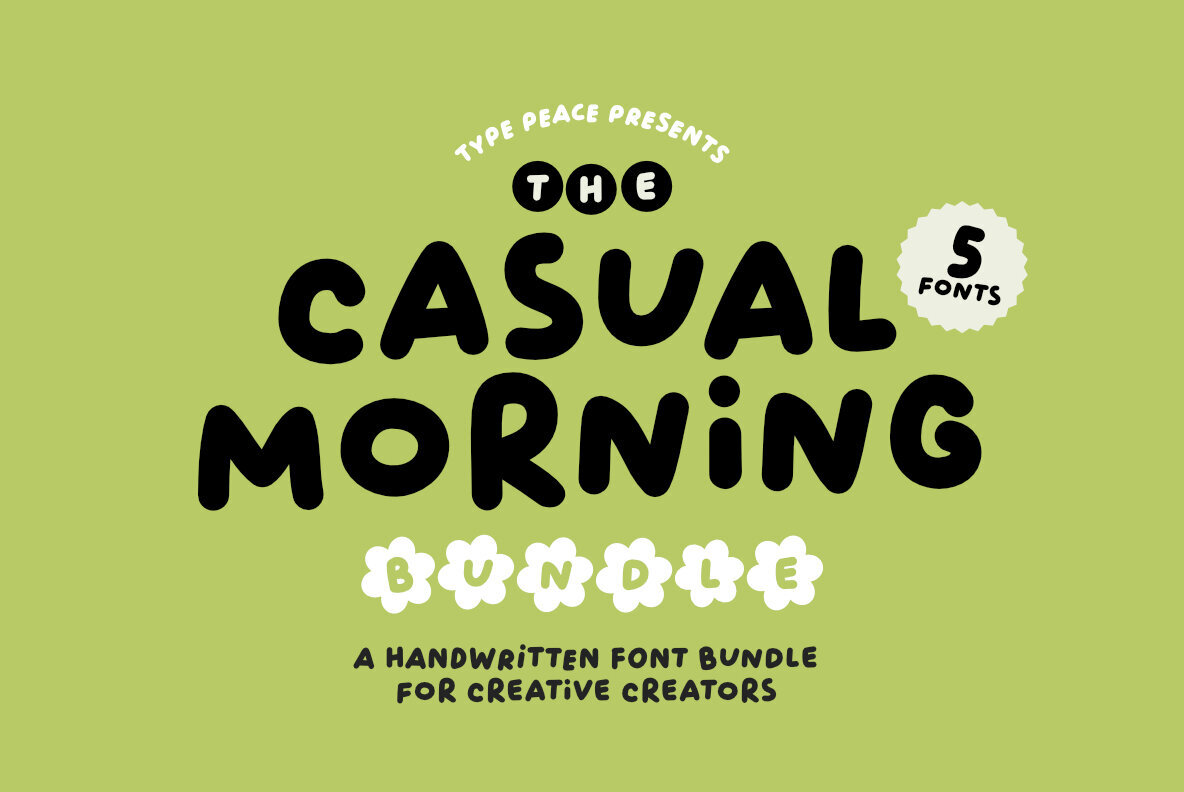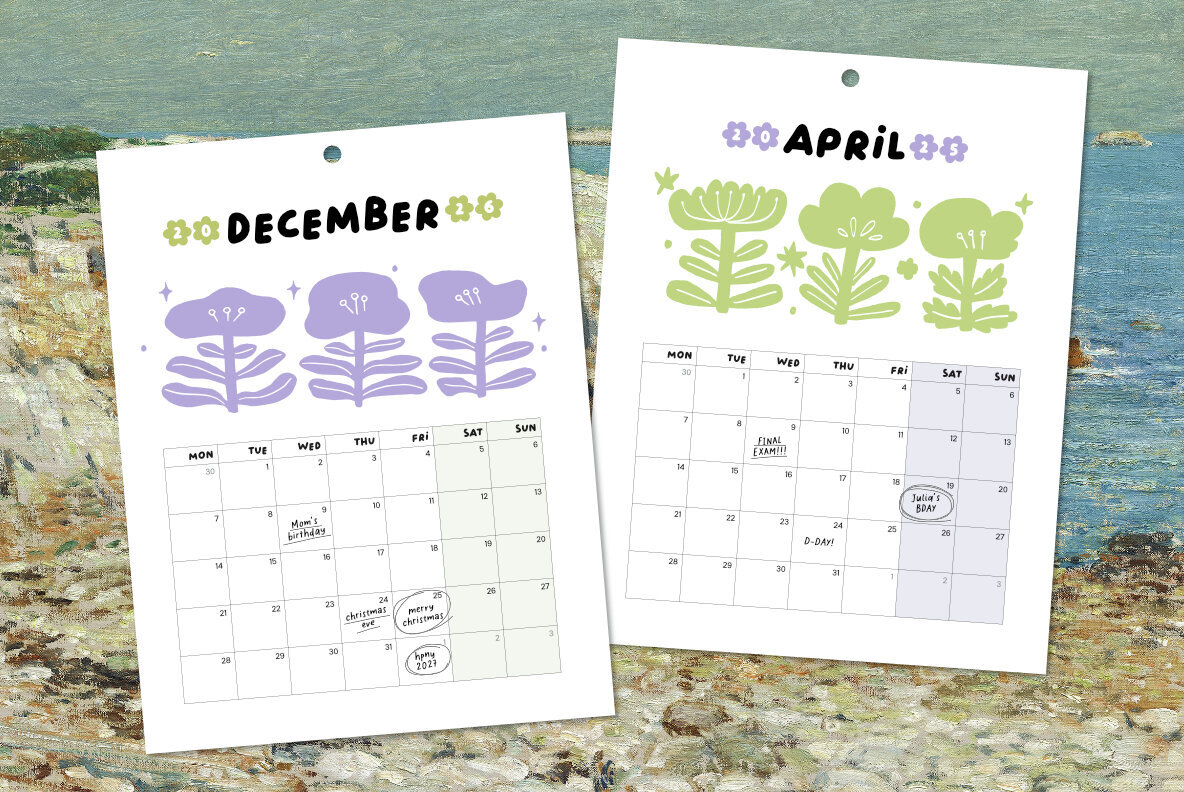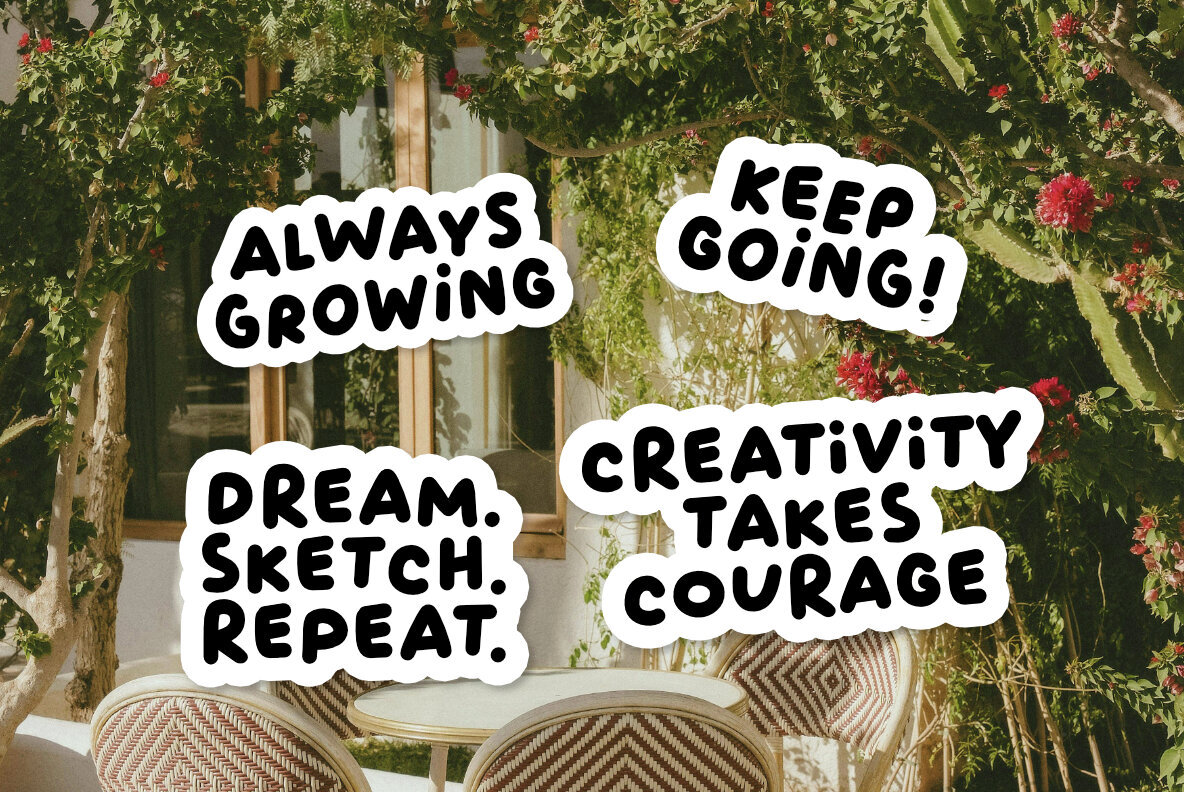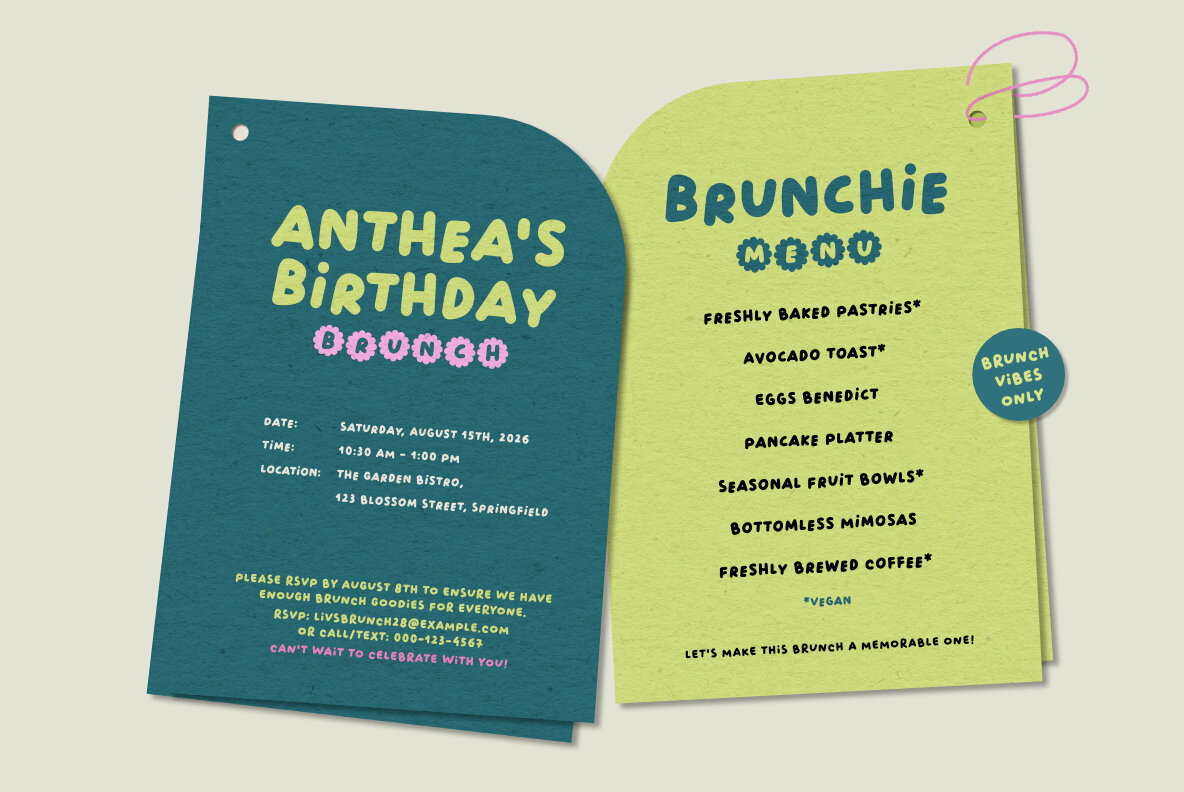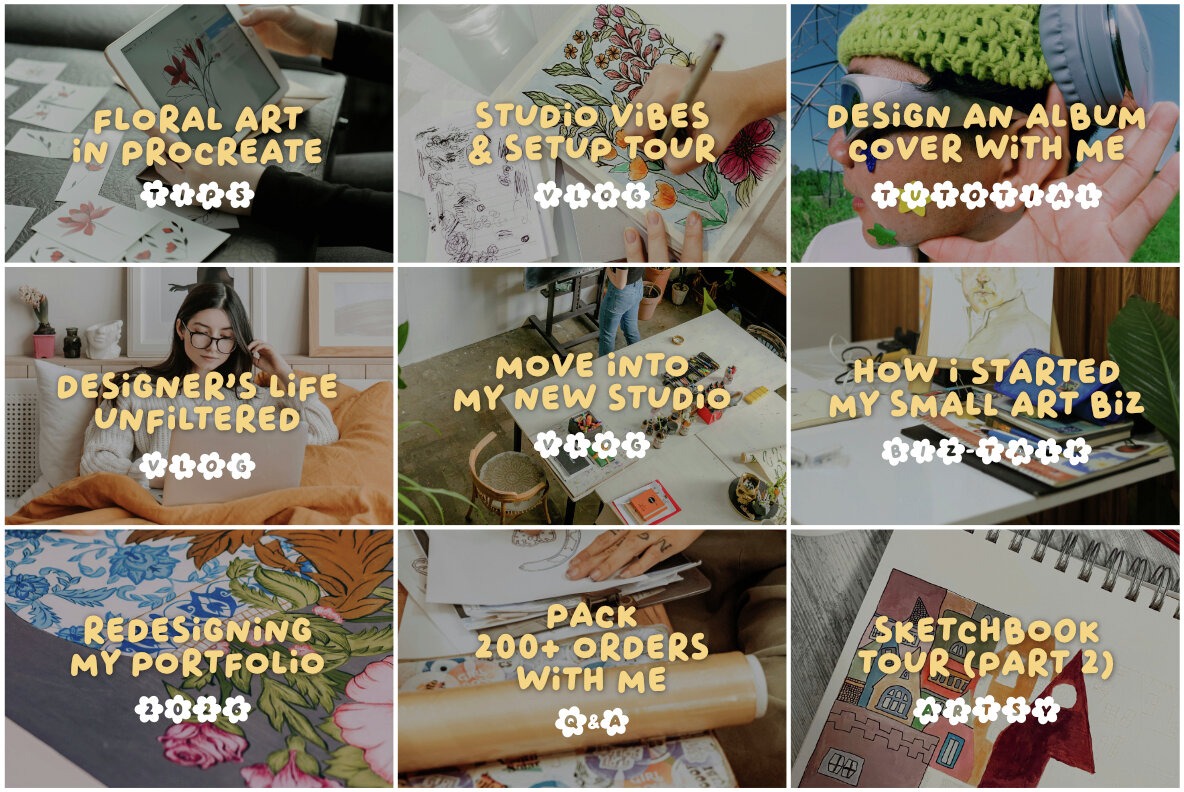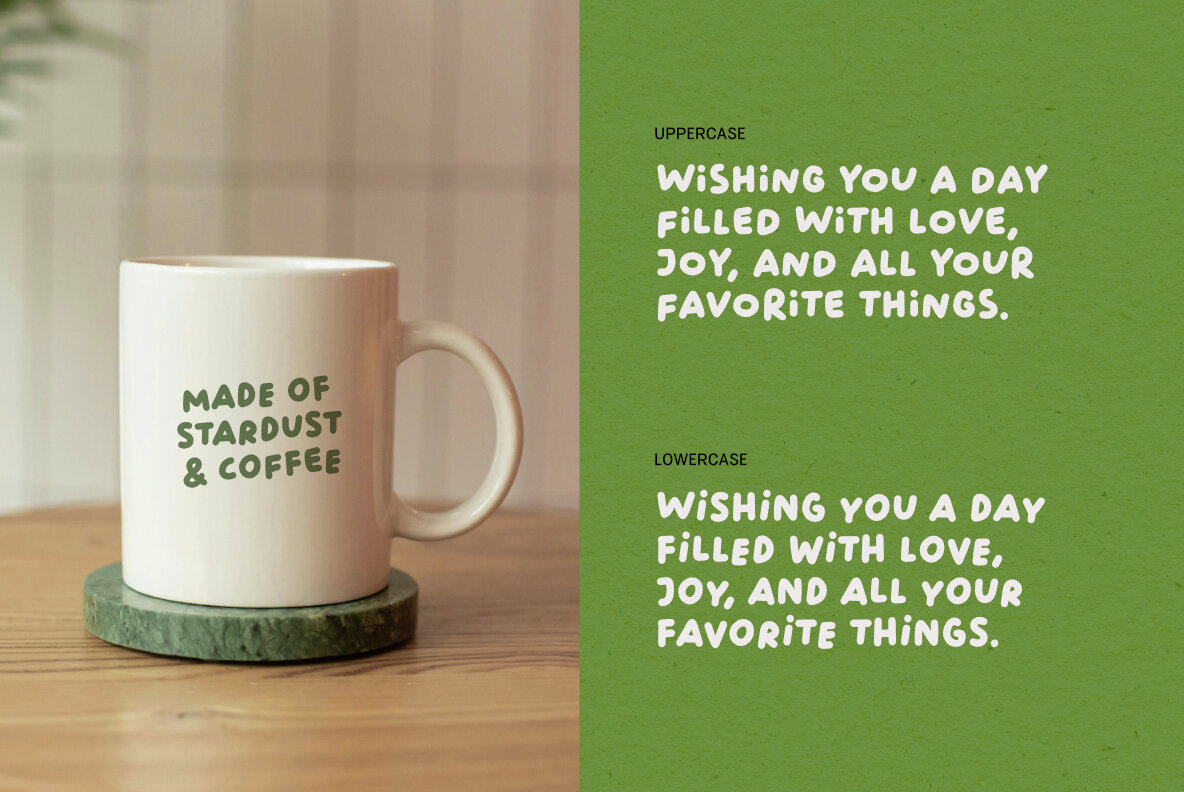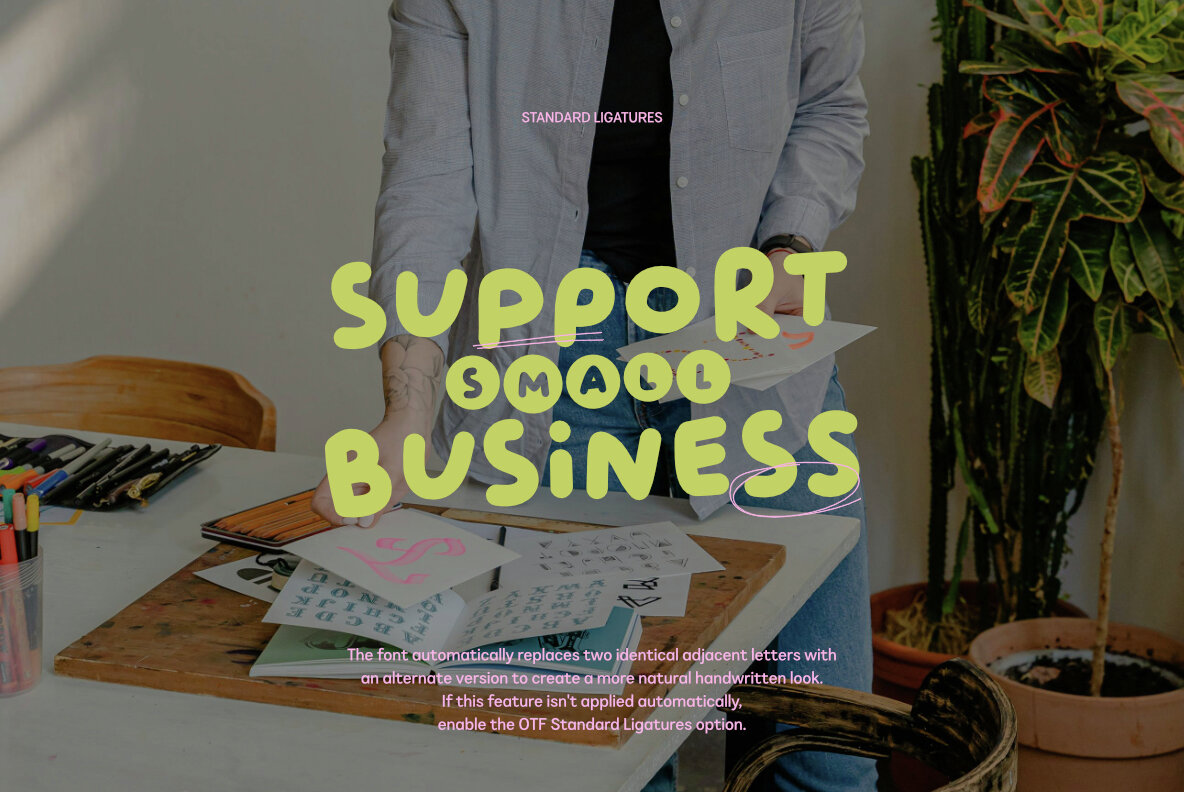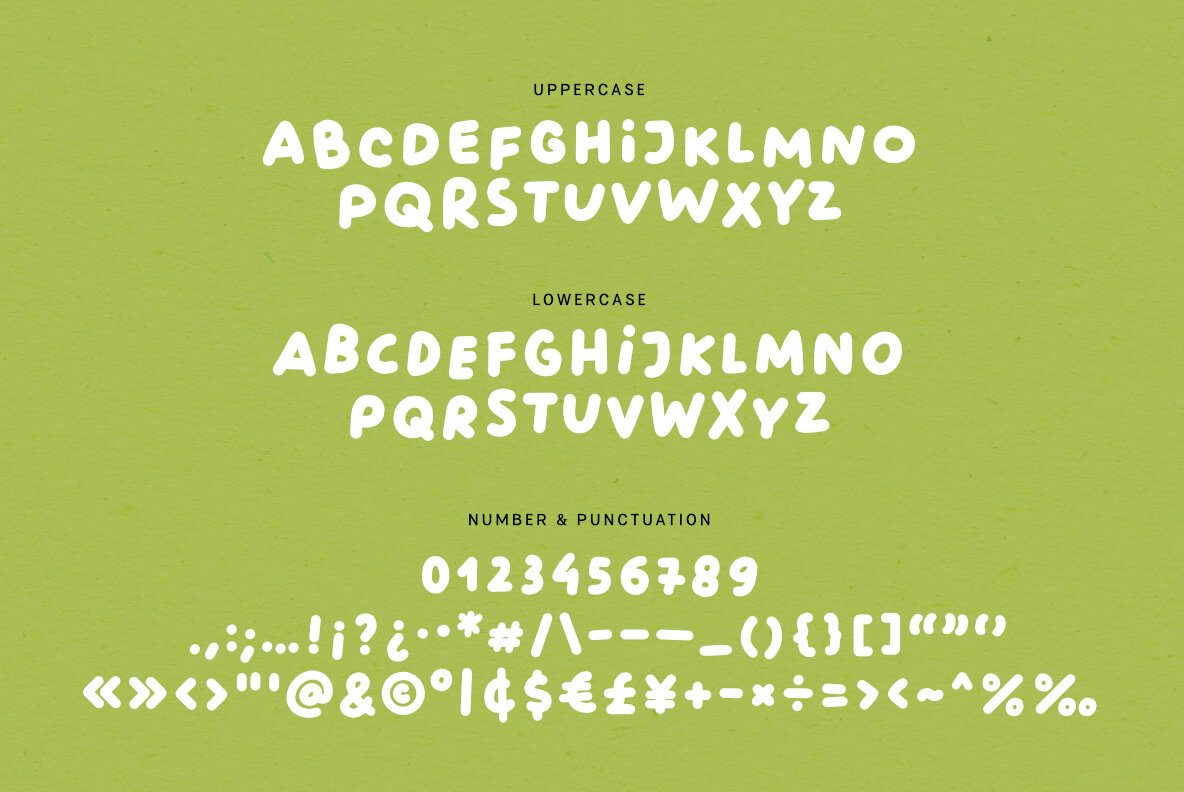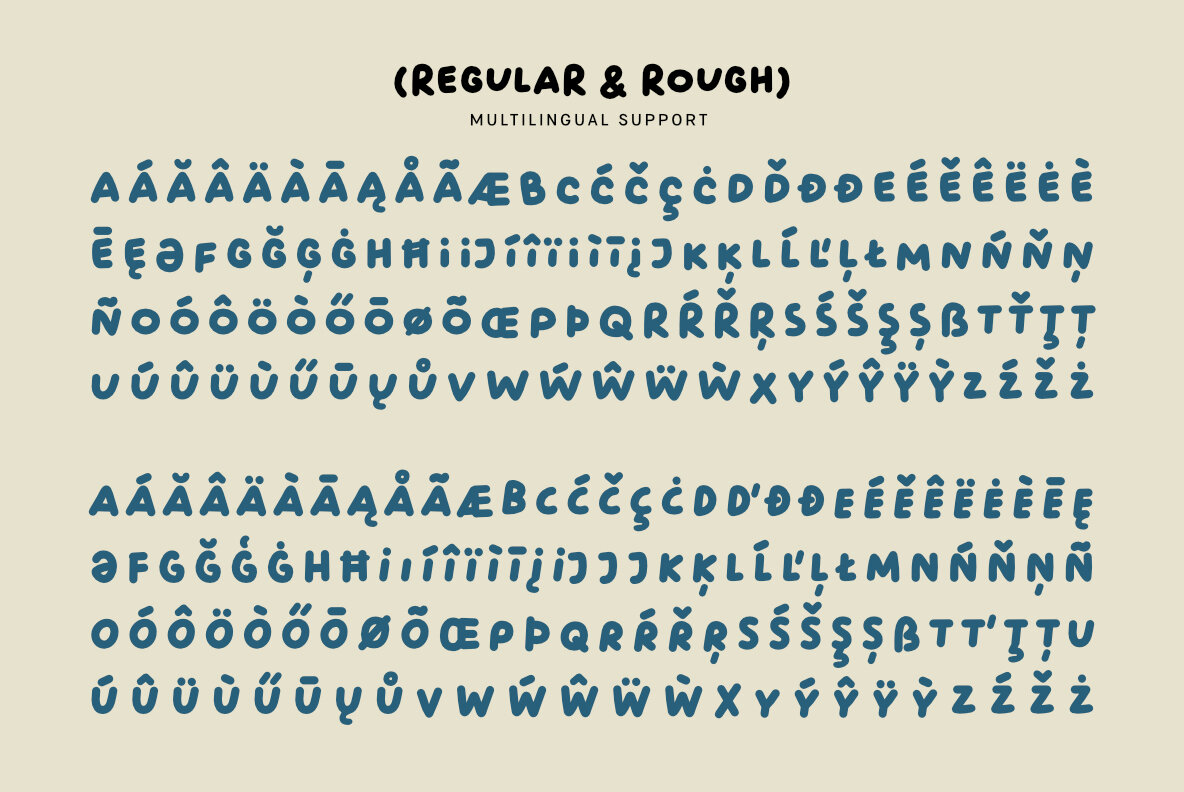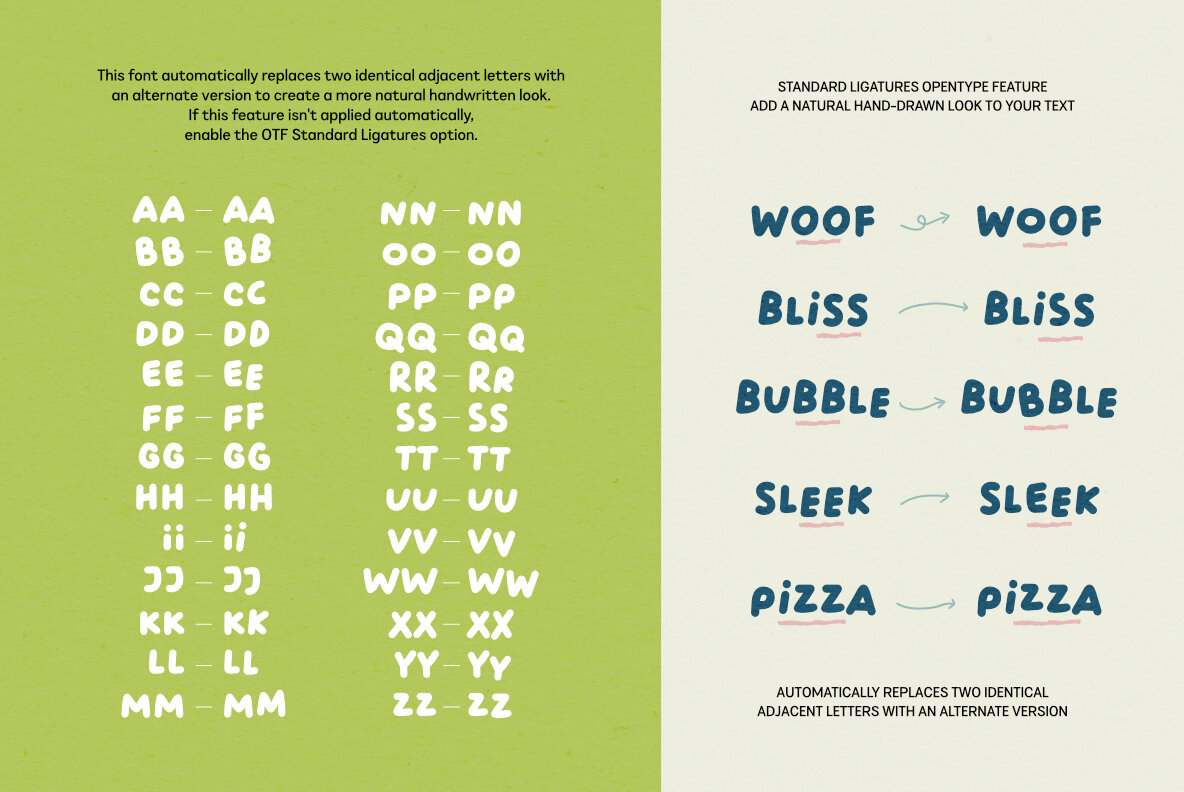
Casual Morning Font
Casual Morning Regular
Casual Morning Rough
Casual Morning Pearl
Casual Morning Flower
Casual Morning Cloud
Casual Morning is an all-caps handwritten font family designed to infuse your creations with a youthful vibe. Its bold and playful character makes it perfect for an array of design projects requiring a touch of charisma. With five distinct styles—Regular, Rough, Cloud, Pearl, and Flower—this font offers flexible choices for titles, text, and decorative elements. From social media graphics to imaginative branding tasks, Casual Morning adapts effortlessly to inject personality into your work. Distinctive Features Language Support Casual Morning supports the Latin script with compatibility for English, Western, Central, and South Eastern European languages.Casual Morning: Playful Handwritten Font Family